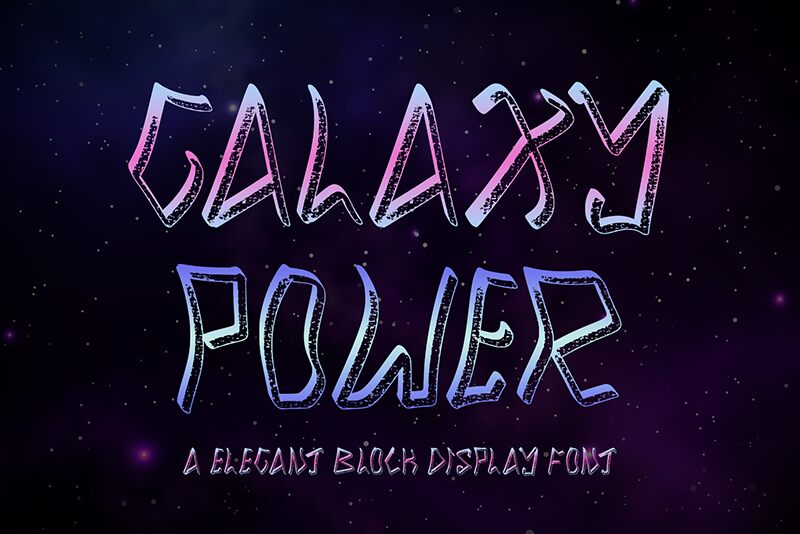
Galaxies are known for their immense size and breathtaking beauty, and no matter the size you want to carry this font with, it will still be a remarkable addition to any design. Yoga Letter created this Galaxy Power condensed graffiti script font inspired by graffiti art and the style of logotypes from the 1970’s.
This font adds an elegant retro touch to your texts and is perfect for logo design, poster creation, music album cover design, T-shirt printing, merchandise decoration, and many more. This is a free version of Galaxy Power font. If you need a wider set of ligatures and features, check out the full version.
Galaxy Power